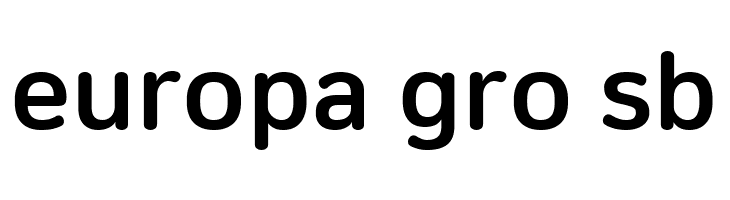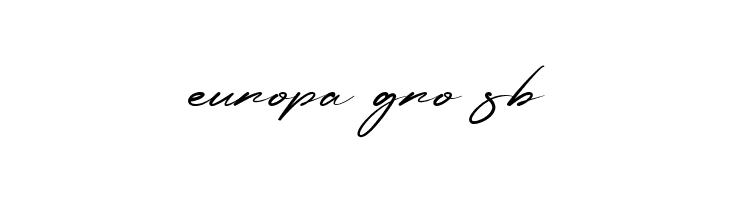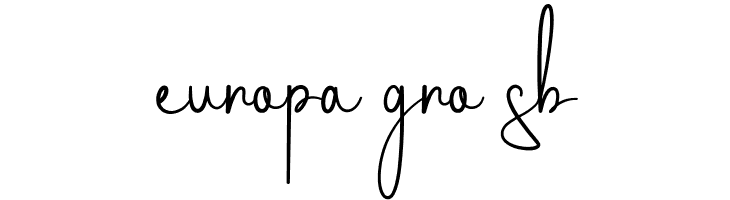
A graceful and fluid script font with elegant cursive strokes.
A delicate and flowing script font with thin, graceful strokes.
An elegant, cursive font with a signature-like style and high contrast strokes.
A charming and elegant handwritten script with fluid, connected letterforms.
A cursive, handwritten font with a signature-like elegance.
A modern, rounded sans-serif font with bold weight and excellent readability.
A bold, cursive script font with dynamic and fluid strokes.
An elegant script font with flowing, interconnected letters and a sophisticated style.
A playful and artistic handwritten font with dynamic, flowing letterforms.
Elegant handwritten script font.